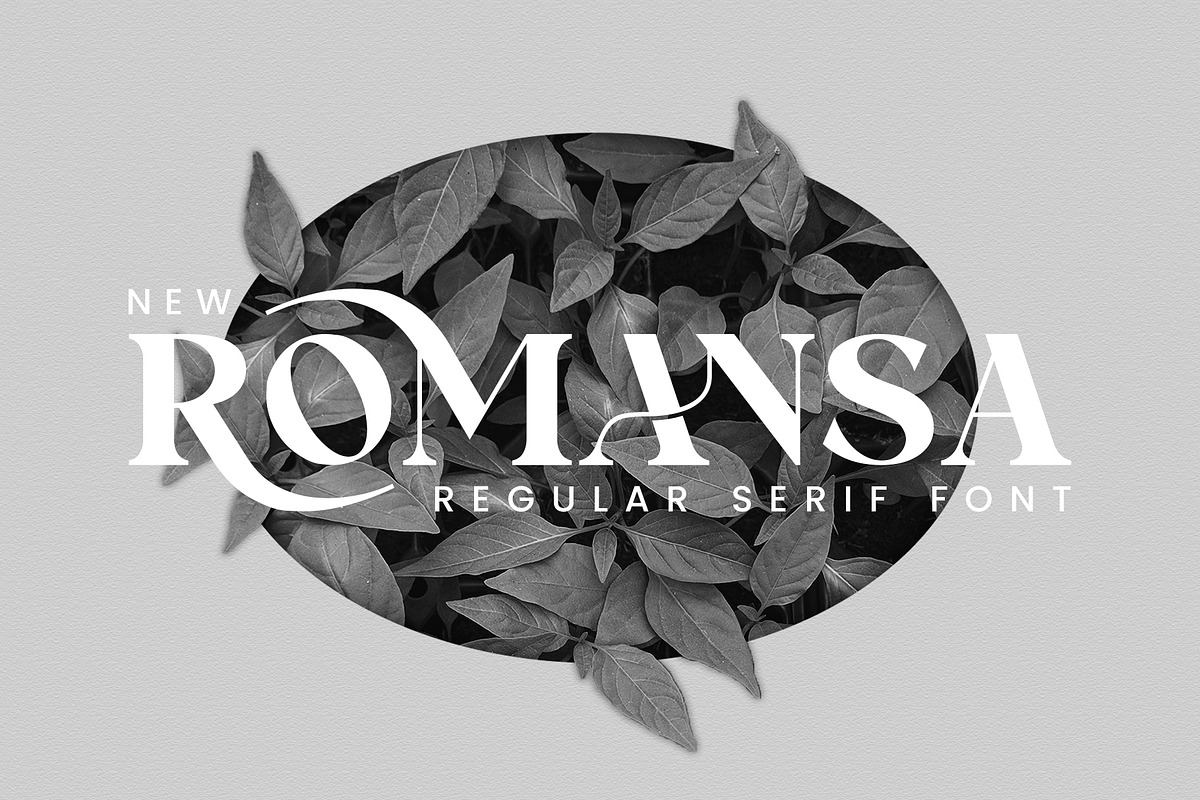
Romansa Serif Font Free Download
Romansa Serif Font Free Download is a romantic and elegant serif typeface designed to bring timeless charm and graceful sophistication to your projects. With high contrast strokes, refined serifs, and delicate curves, Romansa is perfect for wedding invitations, fashion branding, luxury packaging, book covers, and elegant editorial layouts.
Its classic yet modern style allows Romansa Serif Font Free Download to stand out in both headlines and body text, offering a beautiful balance between readability and artistic flair. The font includes stylistic alternates and ligatures for custom typography that feels both refined and expressive.